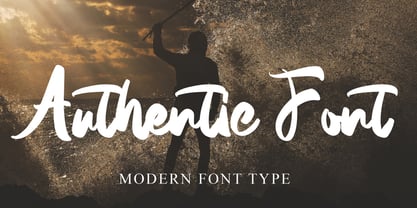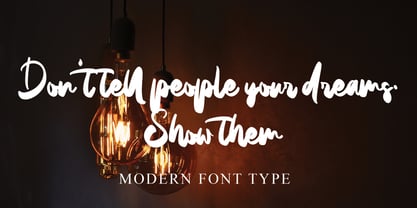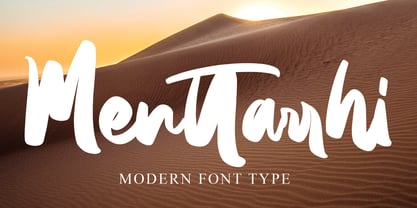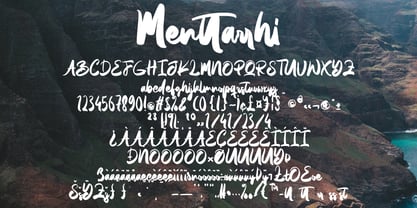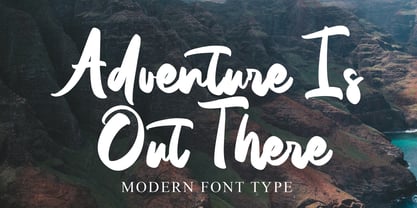
Menttarrhi
The Menttarrhi Font Family was designed by Dhoni Trihatmoko and published by Ayska. Menttarrhi contains 1 styles. More about this family
Experience the transformative power of Menttarrhi, a font reminiscent of chic modernity fused with an effortless, handwritten elegance. As it manifests sophistication and individuality, this handcrafted font acts as a charismatic companion for your digital creations. Whether it's to captivate your blog audience, instill bespoke charm in your digital planner designs, add personality to your invites, or to infuse heartfelt sentiments in handmade greeting cards, Menttarrhi delivers with an authentic touch.
Feel its vintage vibe coursing through your memory-infused photo albums and its inventive flair on your custom decorations. This font's distinctive charm turns your ordinary digital visuals into splendid, eye-catching art. Anchored by Menttarrhi, your creative tide can ebb and flow, leaving a ripples of remarkable impressions. Immerse yourself into the artistic wonder of Menttarrhi and watch as it meticulously transforms your creative visions into tangible masterpieces.